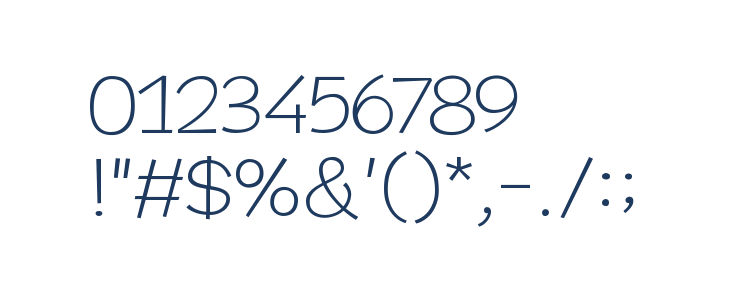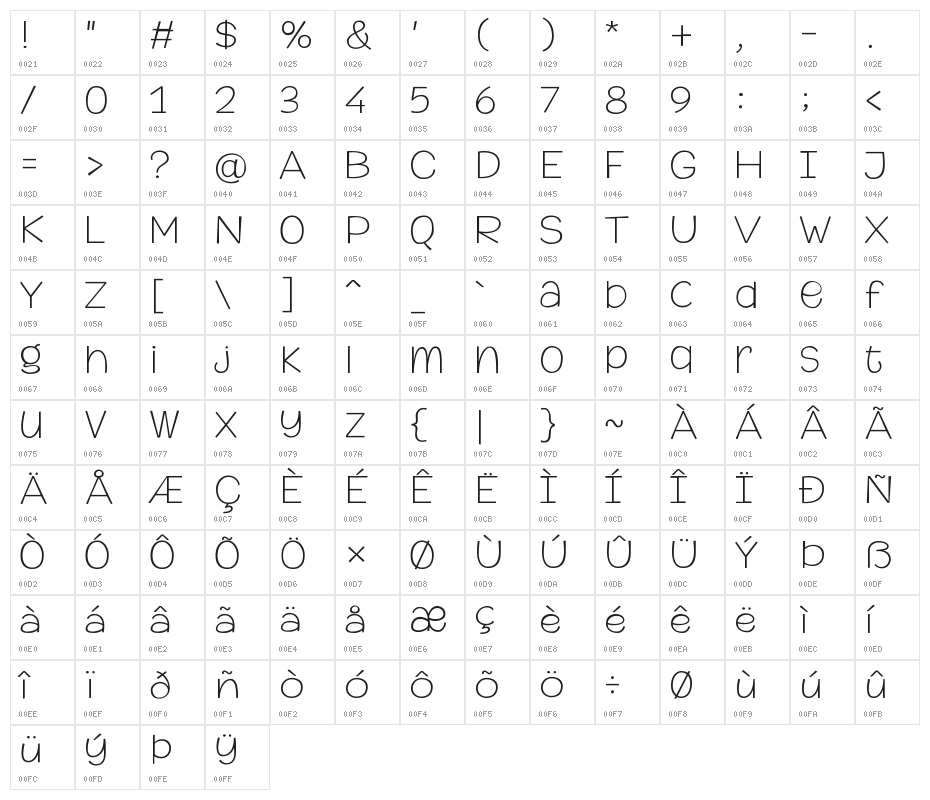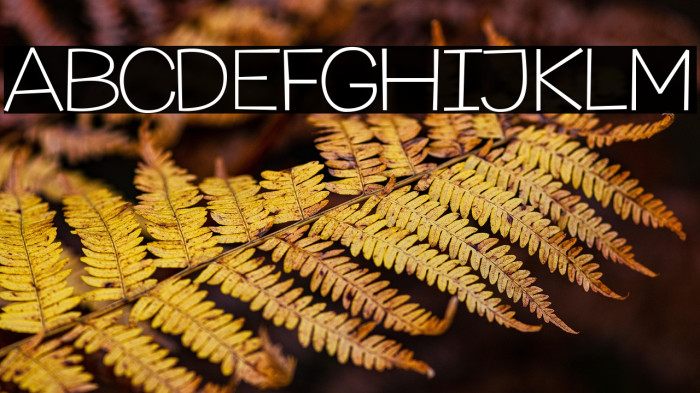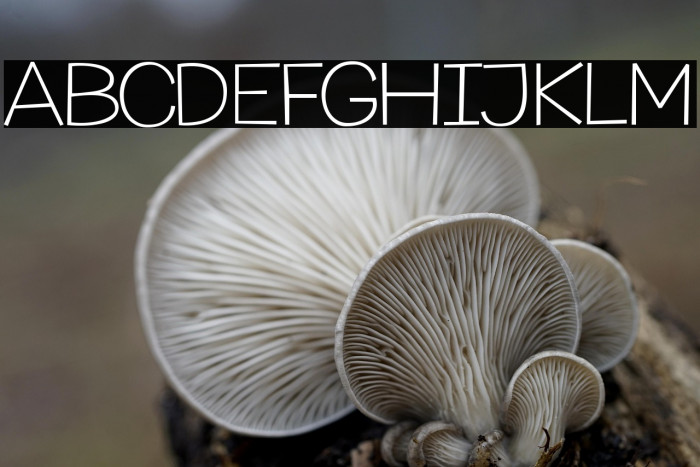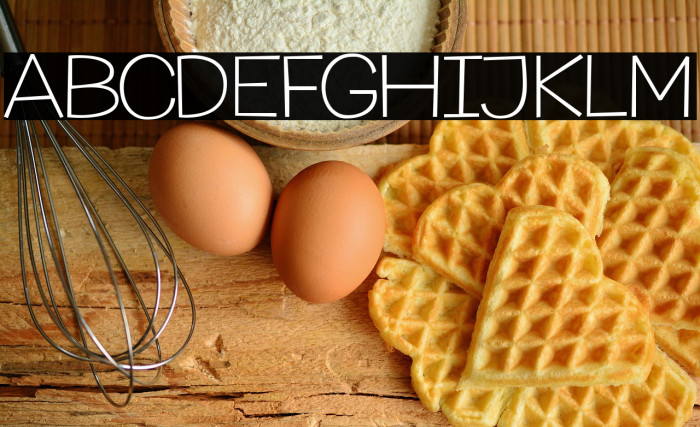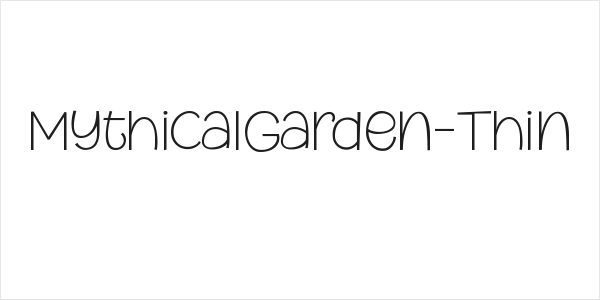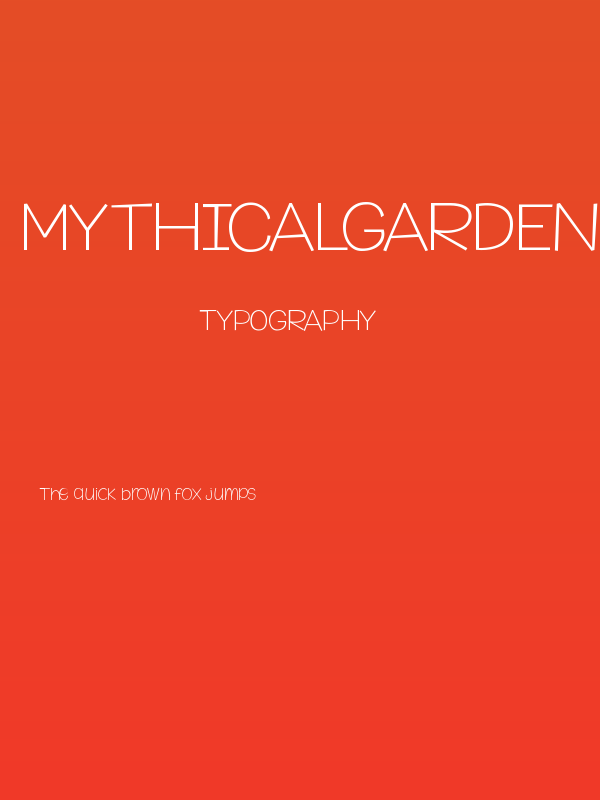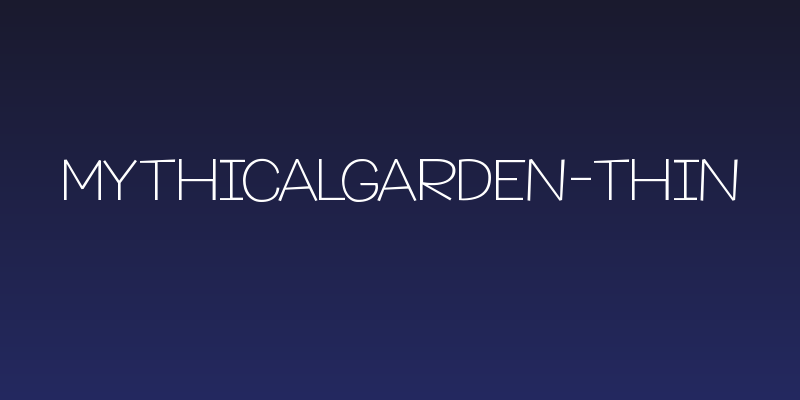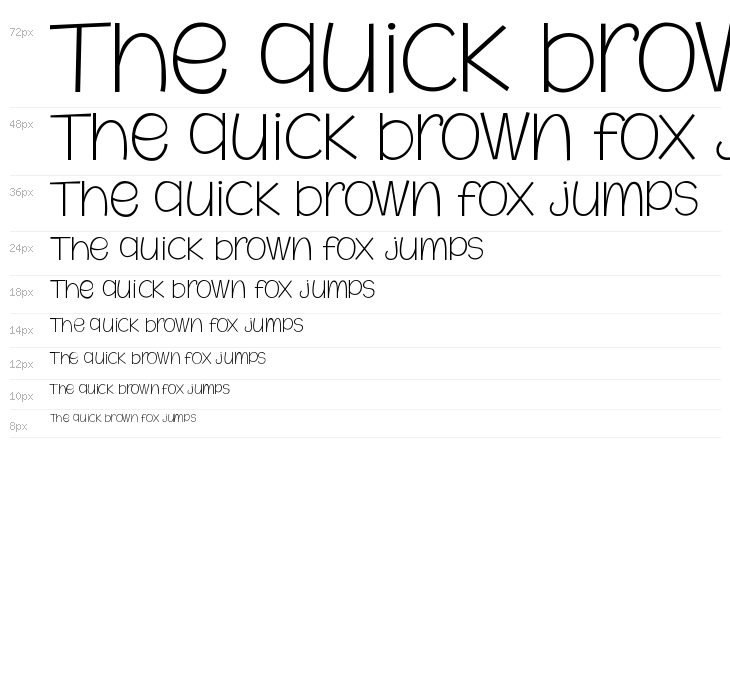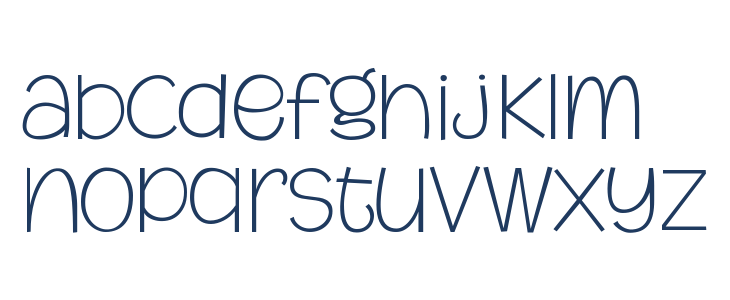
MythicalGarden-Thin Font
MythicalGarden-Thin Description
This font features a unique and modern design with thin, clean lines that give it an airy and elegant appearance. The uppercase letters are tall and slightly narrow, while the lowercase letters maintain a consistent height, creating a harmonious balance. The numerals are straightforward and align well with the overall style, making them easy to read. Special characters are designed with the same thin strokes, ensuring uniformity across all glyphs. The font's simplicity and clarity make it versatile for various design applications.